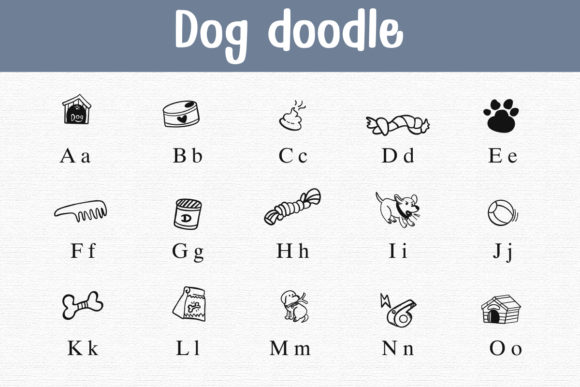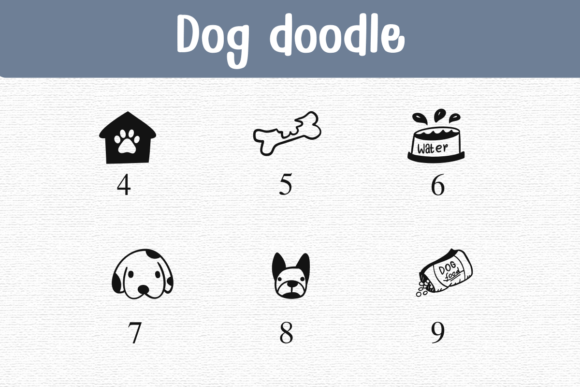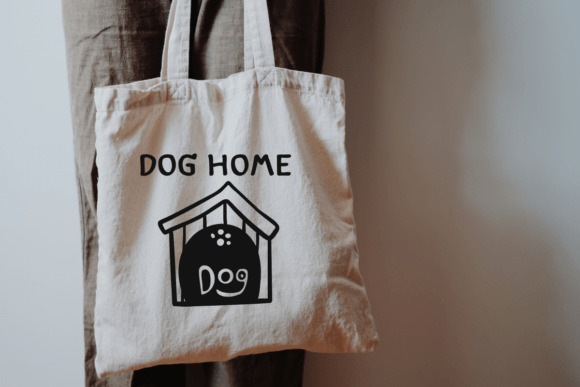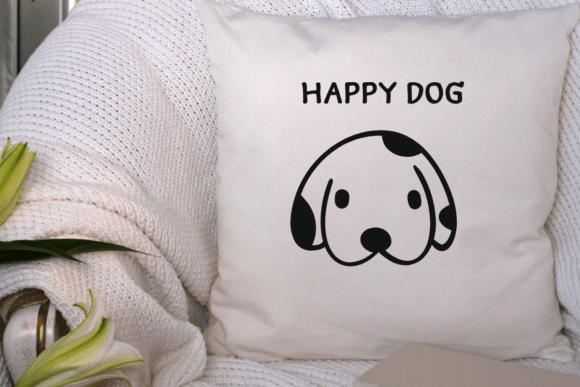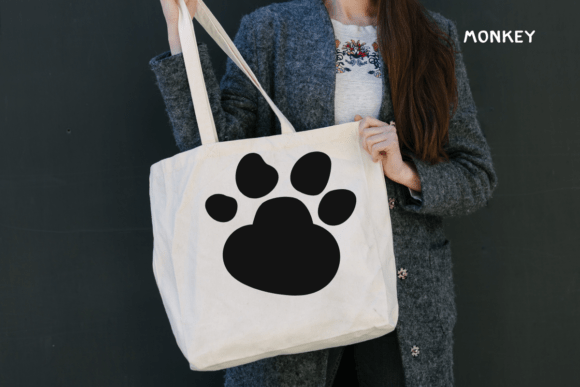
Unleash the Cuteness: Exploring the Delightful World of Dog Doodle Font
Are you a pet lover, a dog enthusiast, or a designer looking for a unique and playful twist to add to your creations? Look no further than the Dog Doodle Font, an adorable dingbats font that is packed with an array of delightful pup-themed illustrations. This charming font is designed to bring a touch of whimsy and fun to any design, making it perfect for pet lovers, dog-themed products, and DIY crafts.
What’s Included in the Dog Doodle Font?
The Dog Doodle Font is a treasure trove of doggy delights, featuring a wide range of illustrations that are sure to make you go weak in the knees. From dog bowls and bones to kennels, paw prints, and cute canines, this font has everything you need to create adorable dog-themed designs. Whether you’re looking to create custom pet accessories, dog-themed party decorations, or simply want to add a personal touch to your digital creations, this font has got you covered.
The Benefits of Using Dog Doodle Font
So, what makes the Dog Doodle Font so special? For starters, it’s incredibly easy to use. Simply type to add instant charm to any design – no need for separate graphic files! This means that you can focus on being creative, without getting bogged down in complicated design software. Plus, the font is highly versatile, making it perfect for a wide range of applications, from digital designs to print projects.
Perfect for Pet Lovers and Designers
The Dog Doodle Font is a dream come true for pet lovers and designers alike. Whether you’re creating custom pet accessories, designing dog-themed party decorations, or simply want to add a personal touch to your digital creations, this font is sure to delight. The illustrations are so cute and playful that they’re sure to bring a smile to anyone’s face, making them perfect for projects that need a touch of whimsy and fun.
DIY Crafts and Projects
One of the best things about the Dog Doodle Font is its versatility. It’s perfect for a wide range of DIY crafts and projects, from customized pet accessories to dog-themed home decor. Imagine being able to create your own custom dog tags, pet beds, or even dog-themed wall art using this adorable font. The possibilities are endless, and the results are sure to be adorable.
Tips for Using Dog Doodle Font
So, how can you get the most out of the Dog Doodle Font? Here are a few tips to get you started:
- Experiment with different font sizes and colors to add depth and interest to your designs.
- Combine the Dog Doodle Font with other fonts and graphics to create unique and eye-catching designs.
- Use the font to create custom illustrations, such as dog-themed icons or graphics.
- Don’t be afraid to get creative and try new things – the Dog Doodle Font is all about having fun and being playful!
In conclusion, the Dog Doodle Font is a must-have for anyone who loves dogs, design, or just plain fun. With its adorable illustrations and easy-to-use design, it’s the perfect addition to any project or creation. Whether you’re a designer, crafter, or simply a pet lover, this font is sure to bring a touch of whimsy and delight to your work. So why wait? Get your paws on the Dog Doodle Font today and start creating your own adorable dog-themed designs!